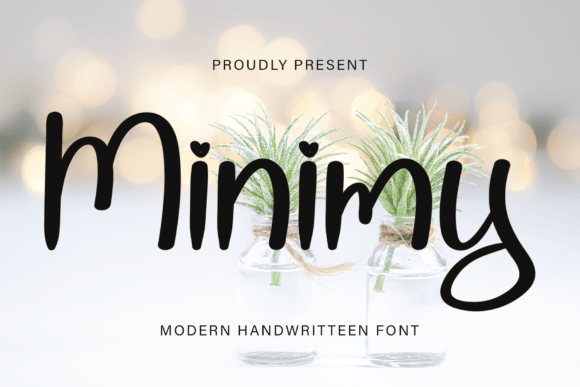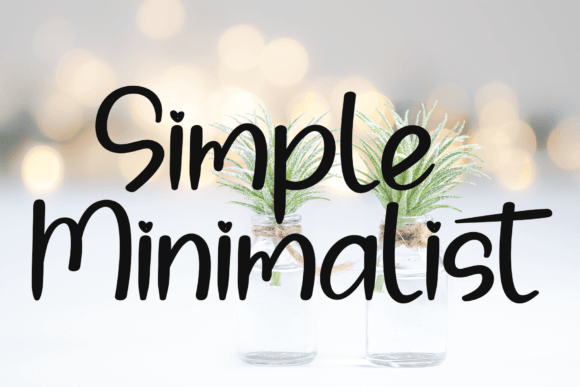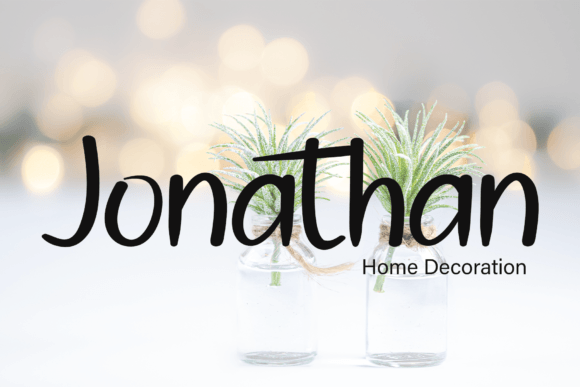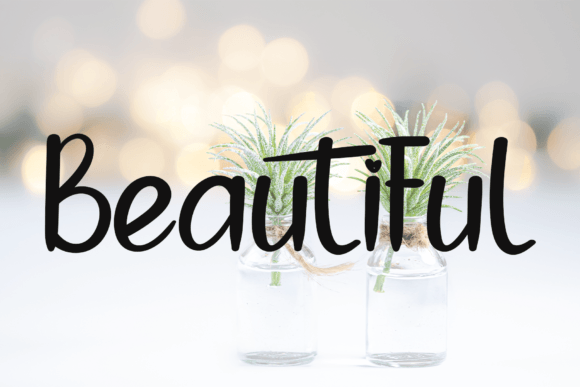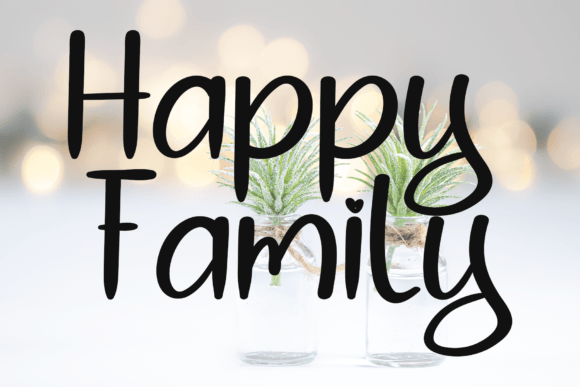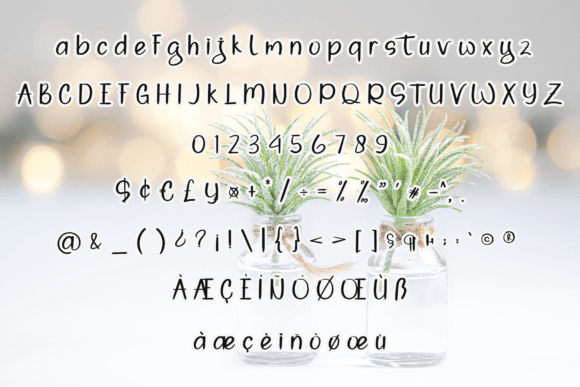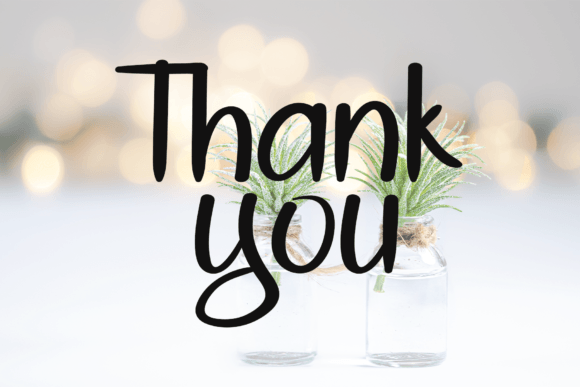
Minimy Font
About Minimy Font
Introducing “Minimy,” a neat and beautiful handwritten font that embodies an elegant touch, making it perfect for a variety of creative projects. Immerse yourself in the distinct and timeless style of “Minimy,” and let it inspire you to create spectacular designs!
The font’s neat and beautiful design, coupled with its elegant touch, makes it a versatile choice for various applications. Whether you’re working on logos, branding, invitations, stationery, or any other design project, “Minimy” is crafted to bring a unique and refined aesthetic.
Fall in love with the font’s incredibly distinct and timeless style, allowing it to stand out in a crowd of fonts. “Minimy” is not just a typographic choice; it’s a design element that adds a touch of sophistication to your projects, making them visually appealing and memorable.
Add “Minimy” to your font collection and witness how its elegant touch transforms your favorite projects. Let it be the go-to font that enhances your logos, branding, invitations, and other designs with a neat and beautiful handwritten flair!